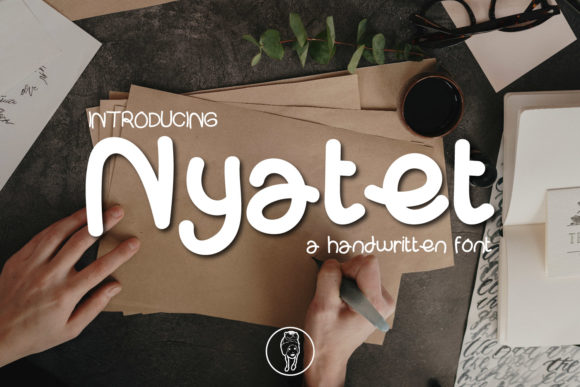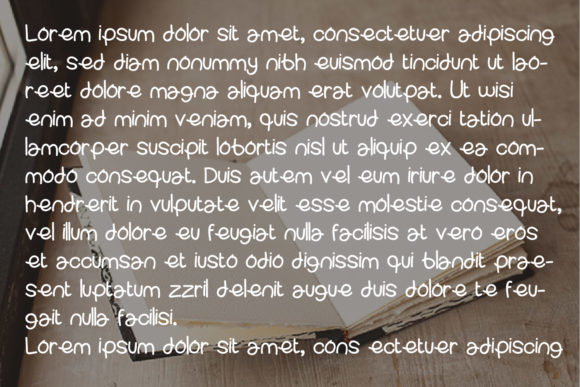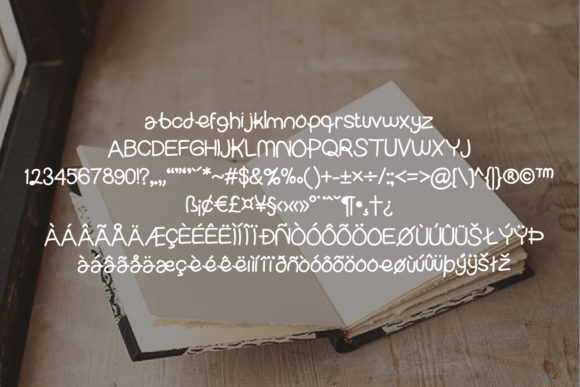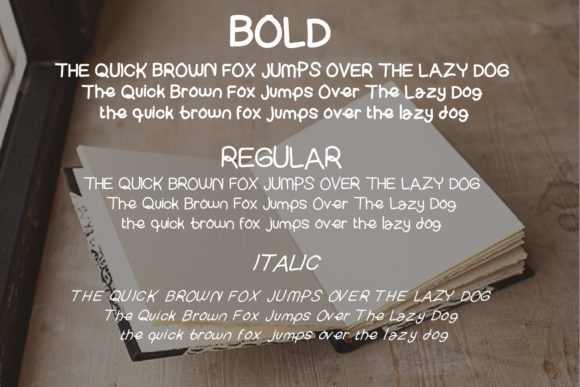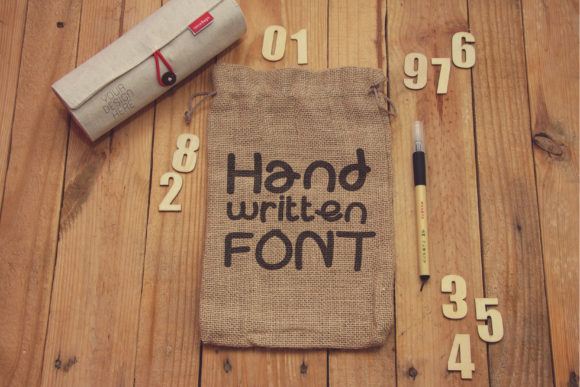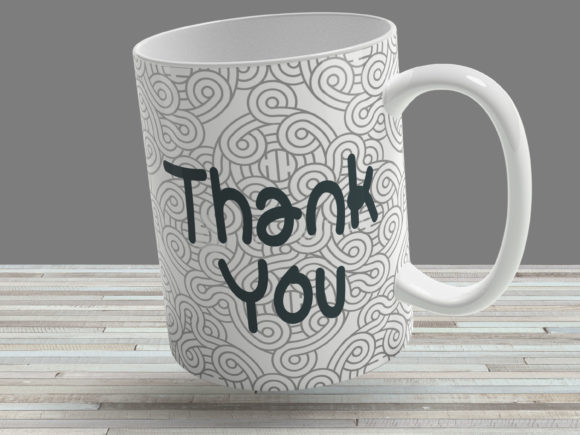
Nyatet Font
About Nyatet Font
Nyatet sounds like a charming and versatile handwritten font that can add a touch of sweetness and friendliness to a wide range of design projects. With its natural and unique style, Nyatet font offers endless creative possibilities for various applications. Here are some ideas on how to use Nyatet font to create delightful and eye-catching designs:
1. Greeting Cards: Design heartwarming greeting cards for birthdays, holidays, and special occasions using Nyatet font to add a personal and friendly touch.
2. Social Media Graphics: Use Nyatet font in social media posts and graphics to create engaging and inviting content that resonates with your audience.
3. Handmade Crafts: Incorporate Nyatet font in various handmade craft projects, such as scrapbooking, journaling, and DIY gifts.
4. Blog Headers: Use Nyatet font in blog headers and titles to give your website a warm and welcoming atmosphere.
5. Quote Graphics: Design inspirational and motivational quote graphics using Nyatet font to spread positivity and encouragement.
6. Product Packaging: Use Nyatet font in product packaging and labels for a handmade and personal touch.
7. Children’s Books and Book Covers: Incorporate Nyatet font in children’s books or book covers to create an inviting and playful design.
8. Nursery Decor: Create adorable nursery prints or wall art using Nyatet font to add a touch of cuteness to the baby’s room.
9. Party Invitations: Design charming party invitations using Nyatet font for birthdays, baby showers, or other celebrations.
10. Stickers and Labels: Create cute and whimsical stickers or labels using Nyatet font for various items and products.
11. Personal Stationery: Design personalized stationery sets using Nyatet font for a warm and friendly touch.
12. T-Shirt Designs: Create cheerful and fun T-shirt designs using Nyatet font for a lighthearted and joyful vibe.
13. Recipe Cards: Use Nyatet font in recipe cards to give your cooking instructions a touch of charm.
14. Kids’ Crafts and Activities: Incorporate Nyatet font in kids’ crafts, activity sheets, and coloring pages to make them more inviting and enjoyable.
15. Scrapbooking: Use Nyatet font in scrapbooking projects to add a playful and delightful element to your memories.
16. Party Decorations: Design cute party decorations, like banners and cupcake toppers, using Nyatet font.
17. Hand-Lettered Signs: Create charming hand-lettered signs for home decor or events using Nyatet font.
18. Invitations for Playful Events: Use Nyatet font to design invitations for playdates, family gatherings, or community events.
19. Digital Art: Create digital art and illustrations using Nyatet font to add a touch of whimsy and warmth.
20. Crafty DIY Projects: Use Nyatet font in various crafty DIY projects, such as homemade gifts and decorations.
In summary, Nyatet is a sweet and friendly handwritten font that can bring a sense of joy and warmth to a wide array of design projects. From greeting cards to social media graphics, from handmade crafts to children’s books, Nyatet font can infuse your creations with a delightful and playful spirit. Its natural and unique style allows for unlimited creativity, making it an excellent choice for any design where you want to convey a sense of approachability, creativity, and positivity. Embrace the versatility of Nyatet font and let your imagination run wild as you create designs that captivate with their sweetness and friendliness!